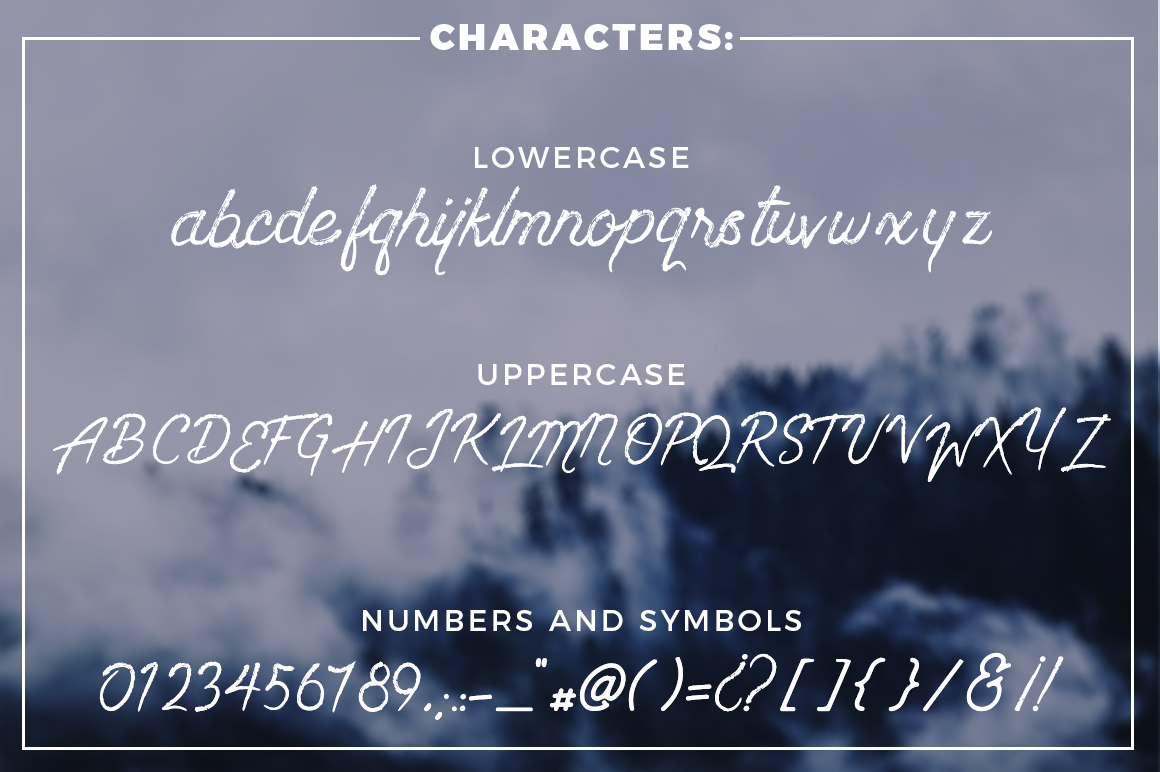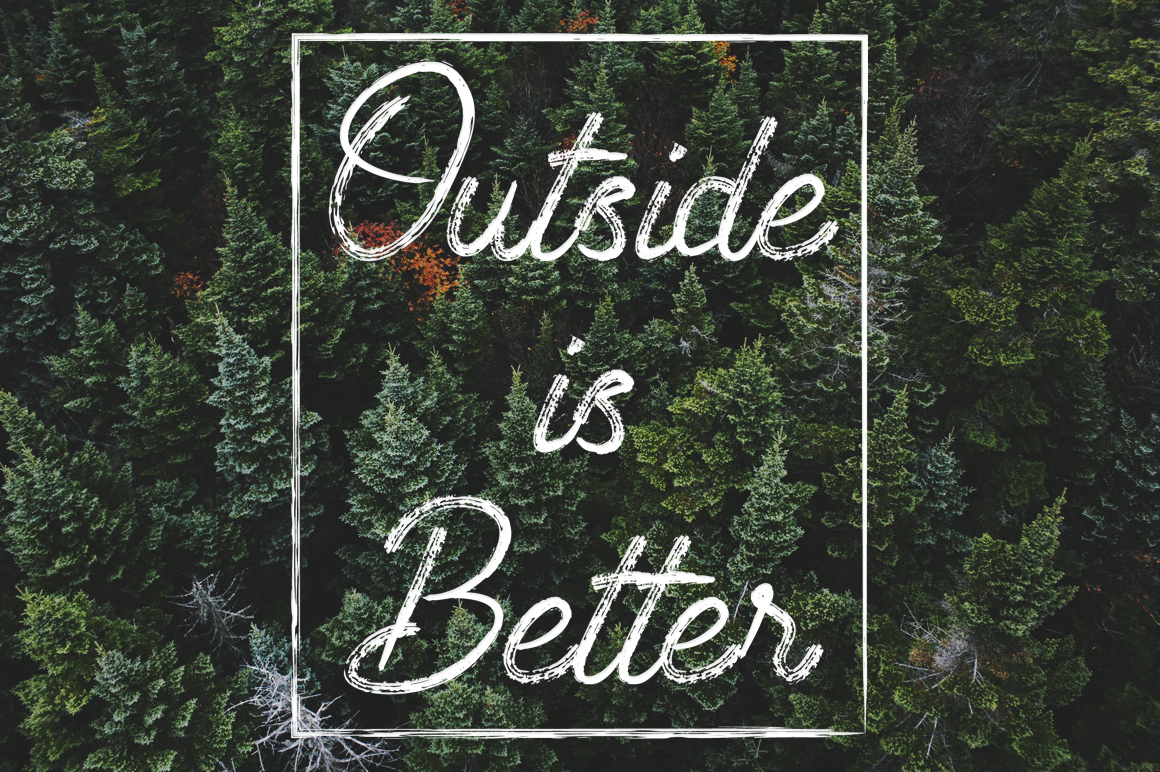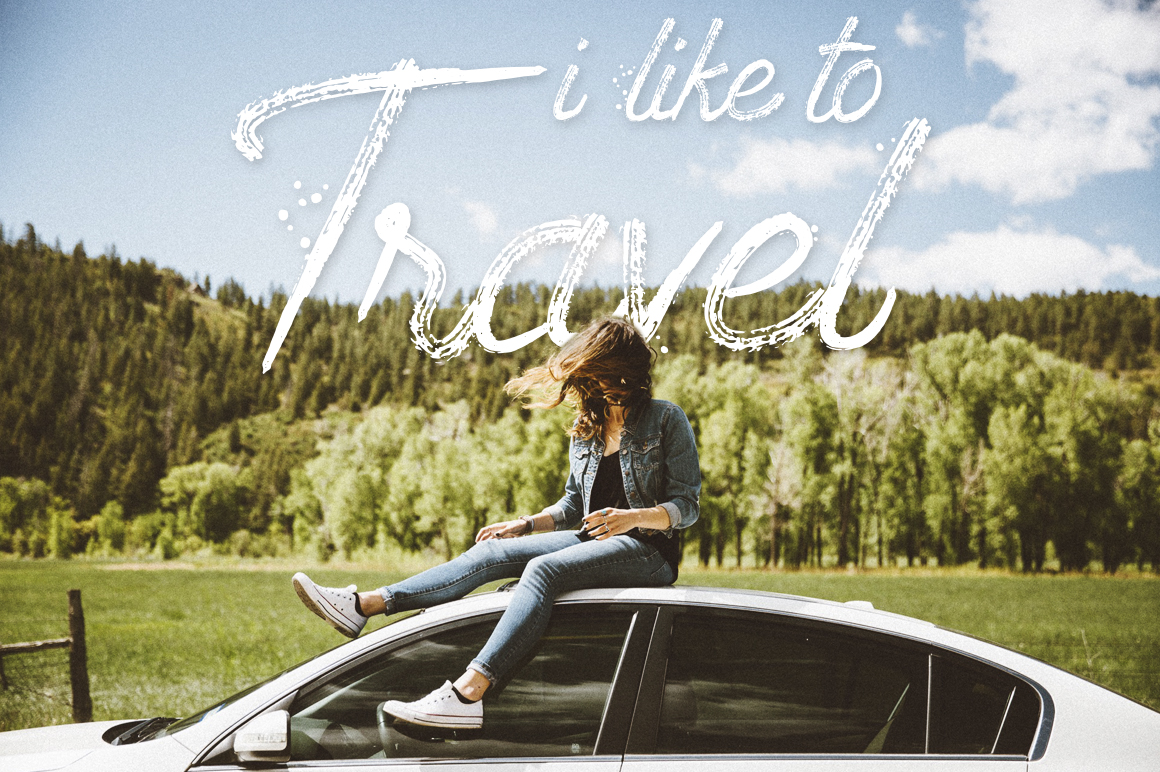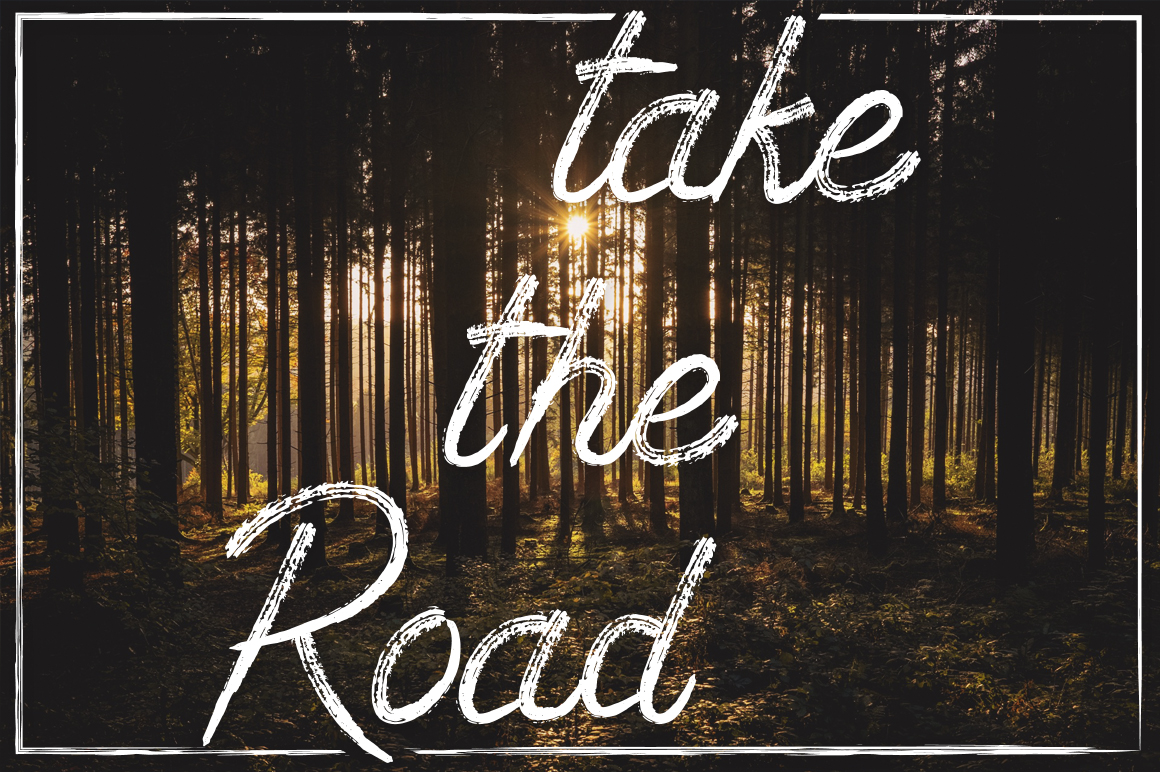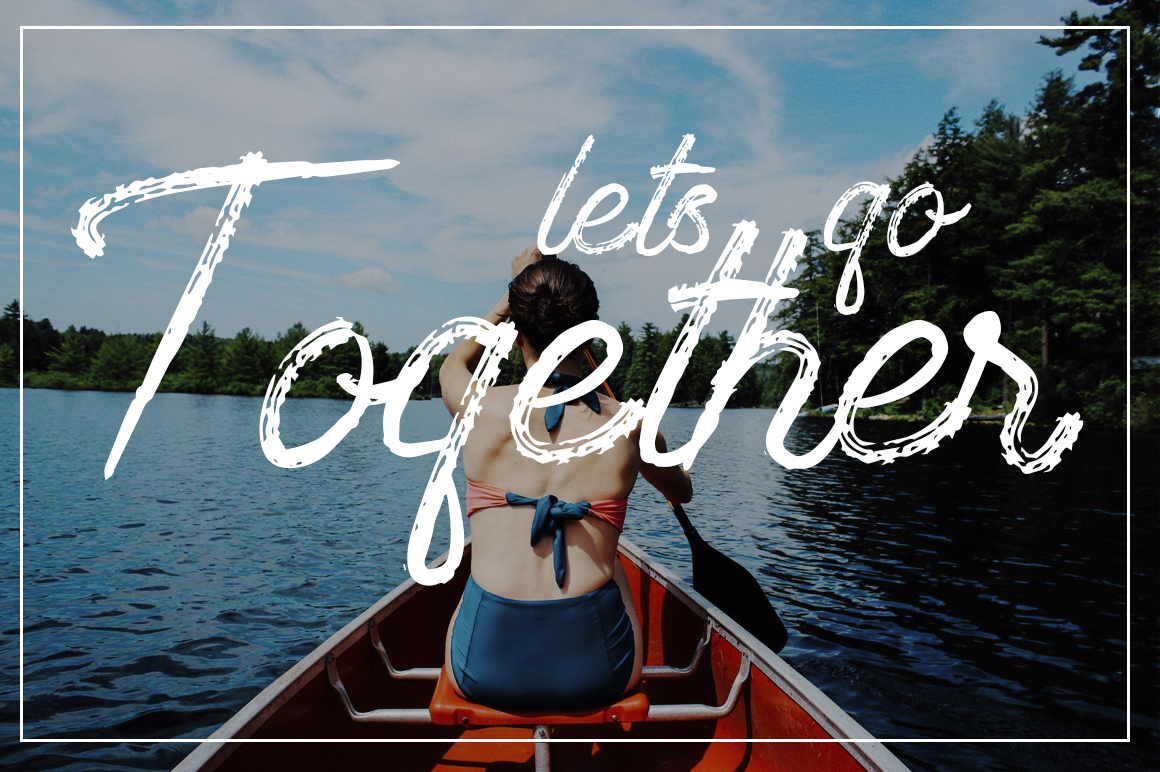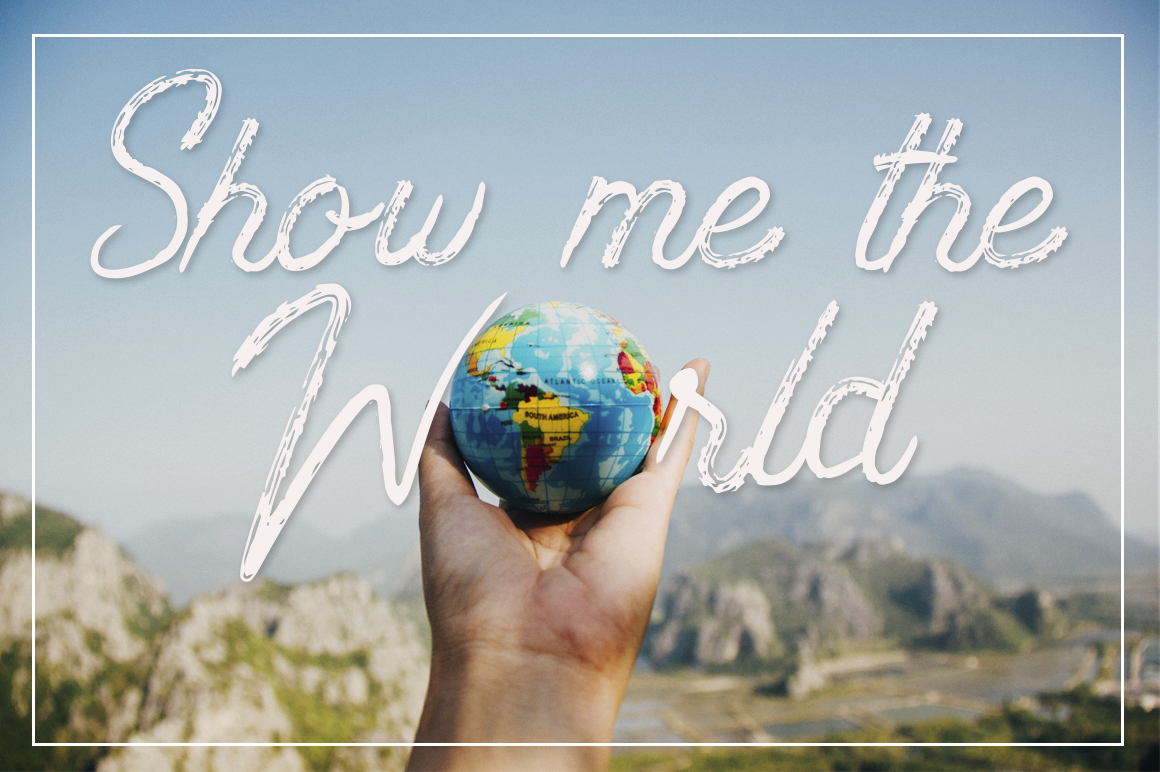
Wanderlust Font
About Wanderlust Font
Wanderlust is a typeface with a dry brush texture. It will give your designs that handmade touch that you’ve been looking for. The font is cursive, stylish and perfect for many different types of projects.